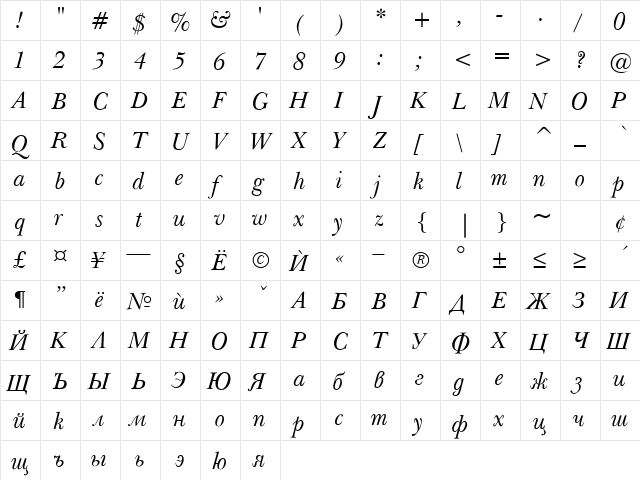
Balkan Italic
Design Context for Balkan Typeface
Balkan offers clean, dependable letterforms without strong stylistic allegiance, making it a practical choice for designers who need flexibility. The dynamic lean of this cut emphasises speed and emphasis in any layout.
Pro Tip: Try Balkan for annotation and caption copy alongside an upright companion — the contrast in angle creates a dynamic but ordered typographic system.